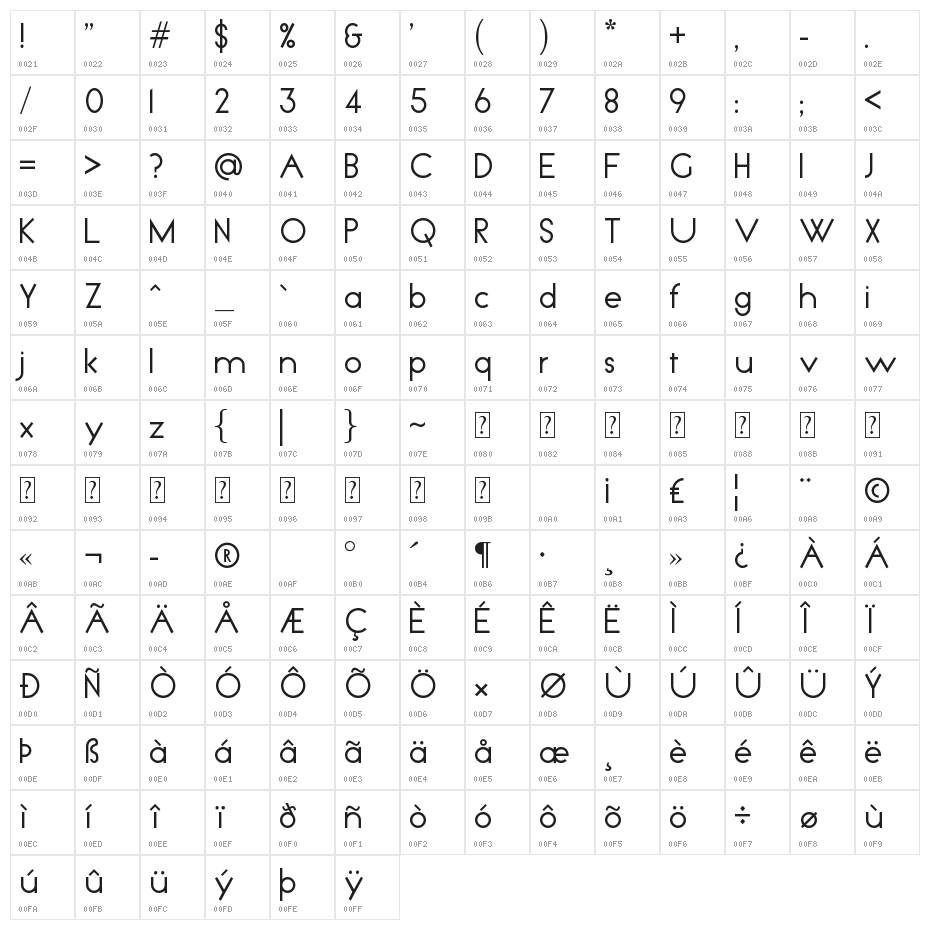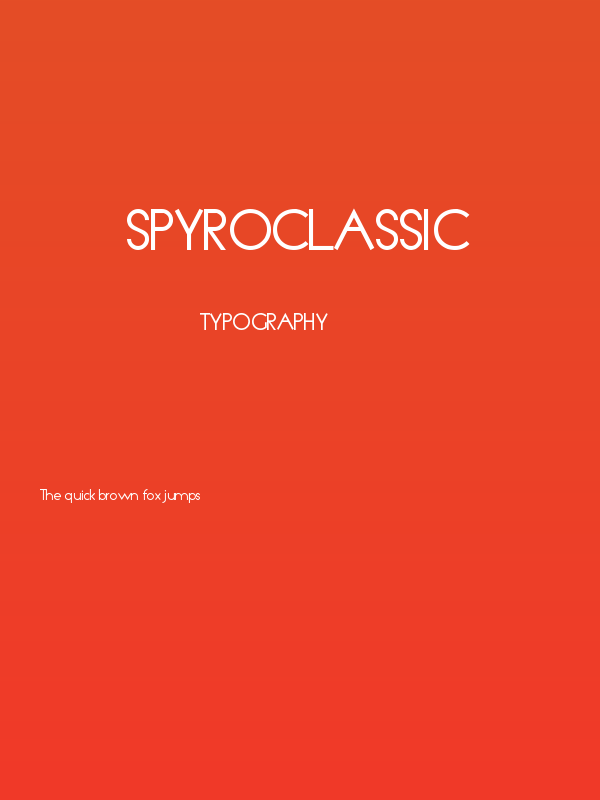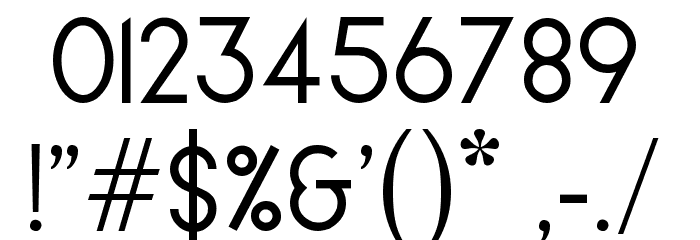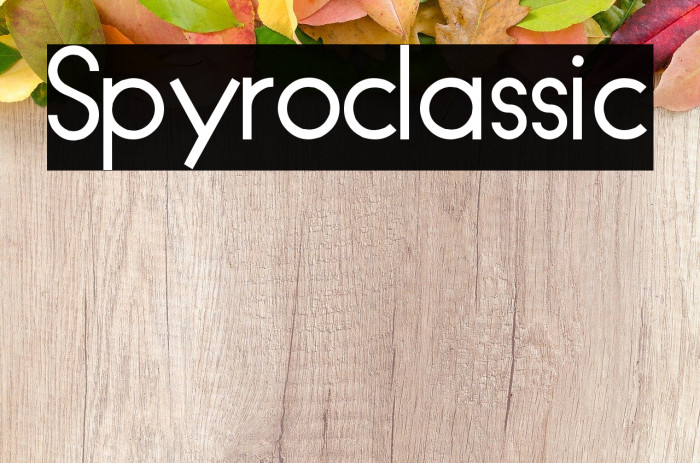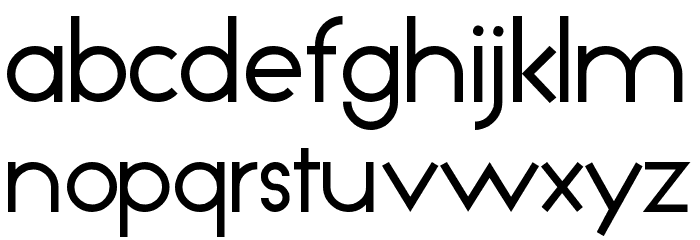
Spyroclassic Font
Spyroclassic Description
This font features a clean and modern sans-serif design with geometric shapes and uniform stroke widths. The uppercase letters are tall and elegant, while the lowercase letters maintain a consistent and harmonious appearance. The numerals are clear and easy to read, complementing the overall minimalist aesthetic. Special characters are well-defined, adding versatility to the font's use. Its simplicity and clarity make it suitable for a wide range of applications, from digital interfaces to print media.